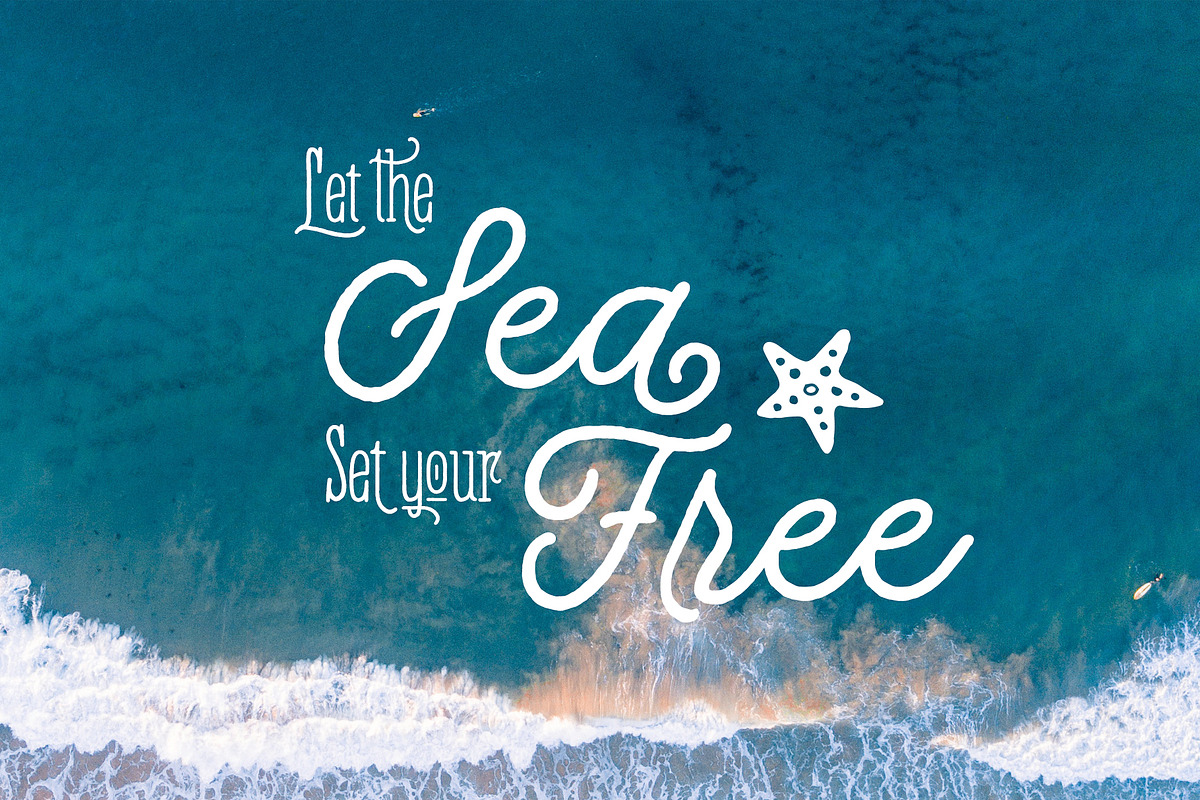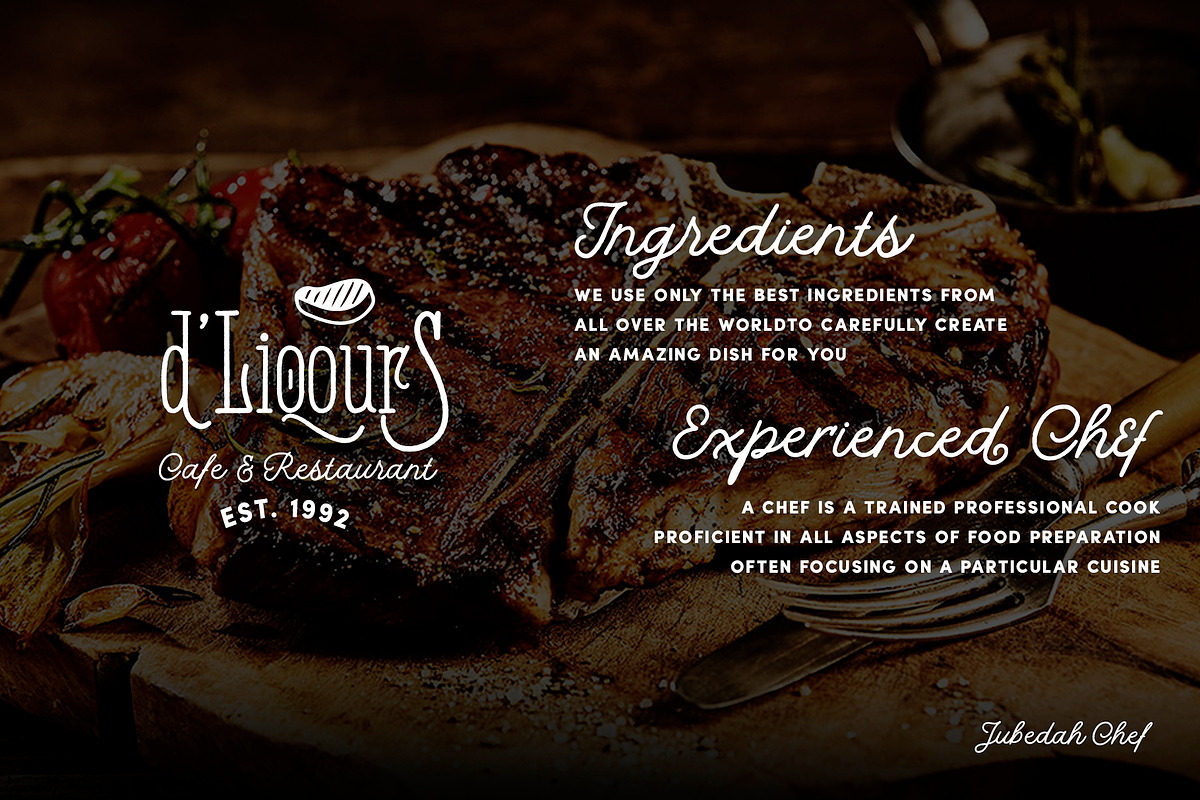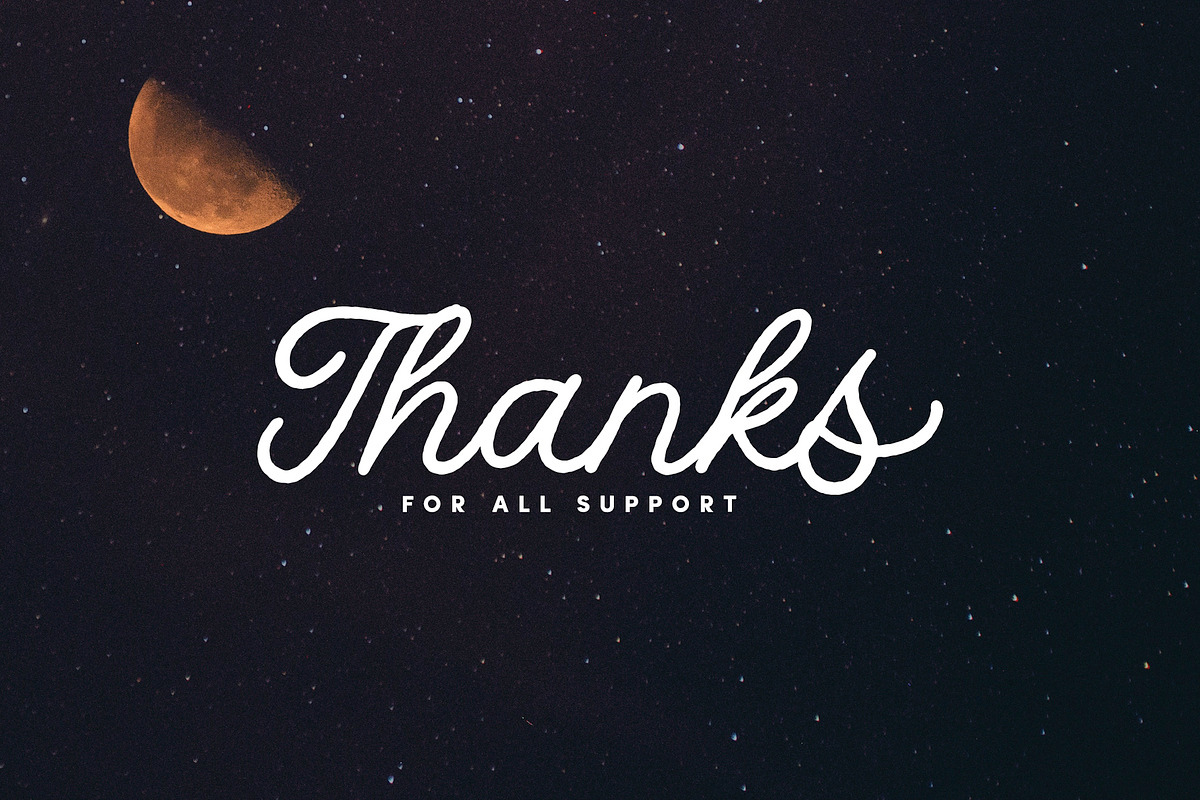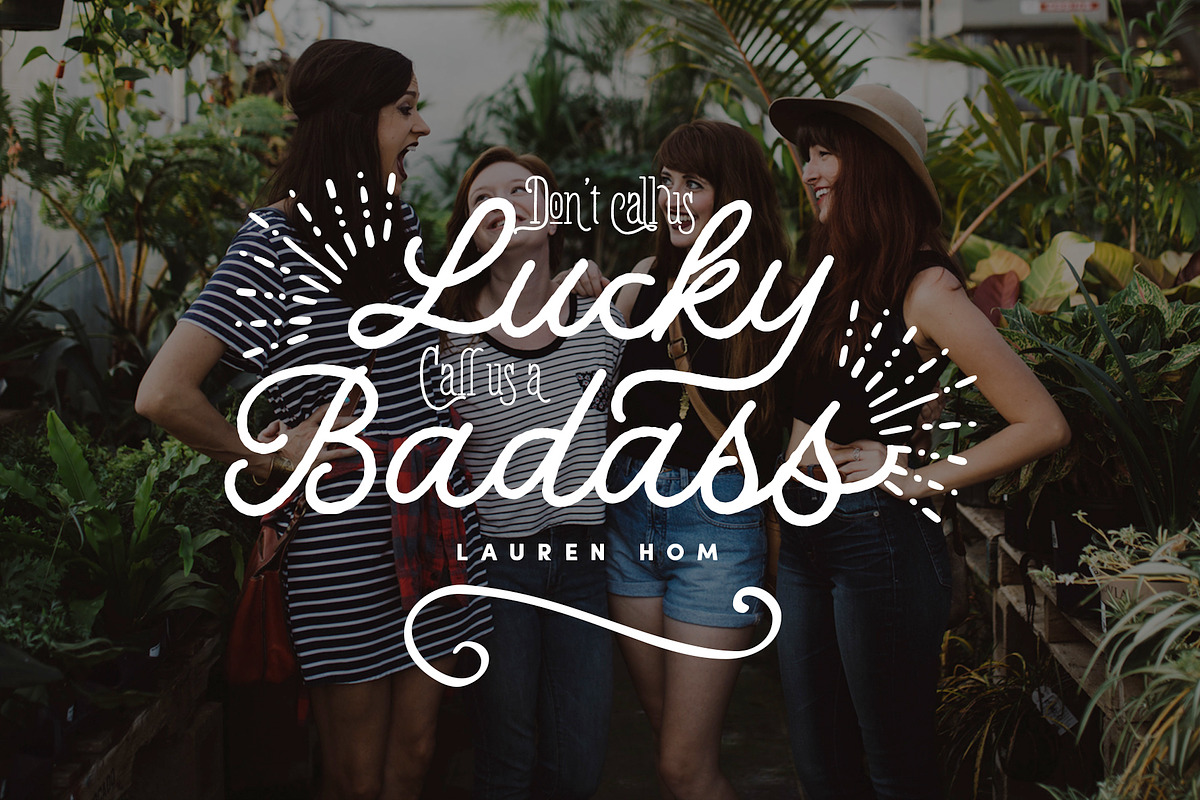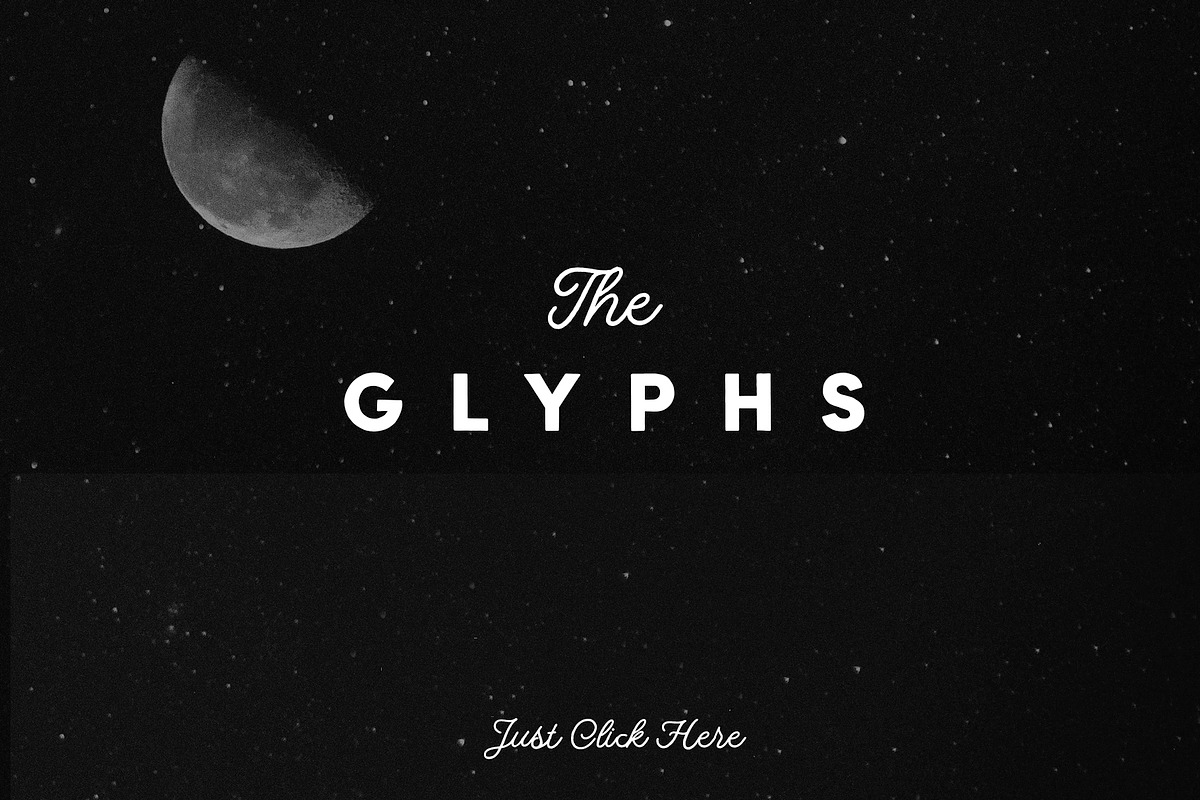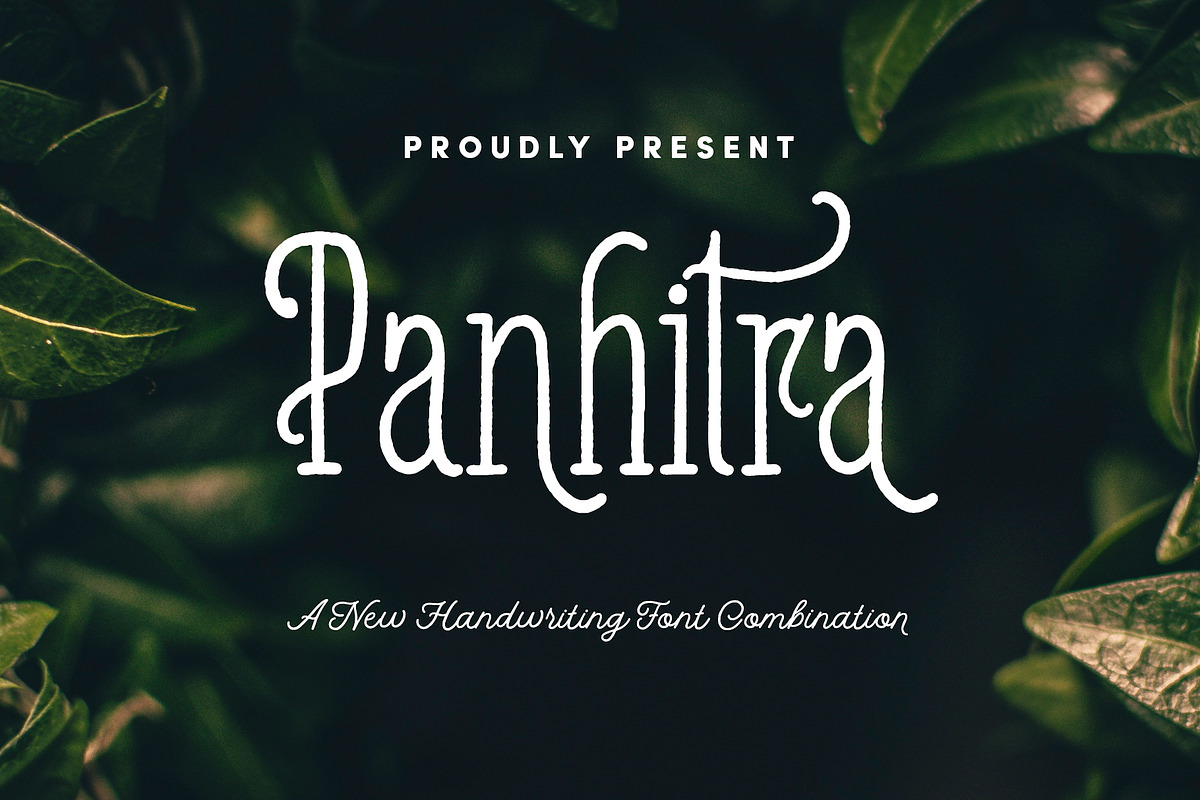
Panhitra Font Family
Say Hello to our new font family Panhitra
Panhitra is a brand new font collection from our typefoundry. Includes 3 fonts that have different styles but perfectly paired when used together. Every single character crafted carefully, this is a high quality handmade font. The rough edge make the font is look so classy and real handwriting. This font family also offered alternate character, so you can personalize your design.
- Panhitra Sans
- Panhitra Slab
- Panhitra Script